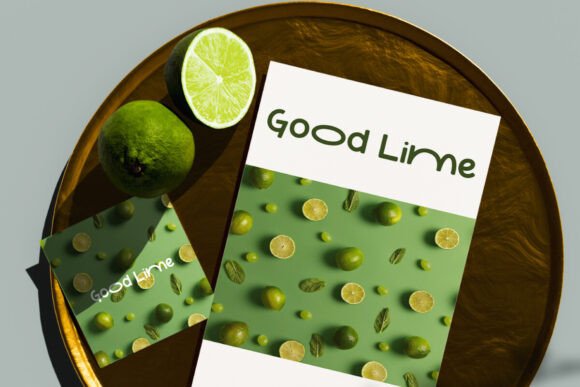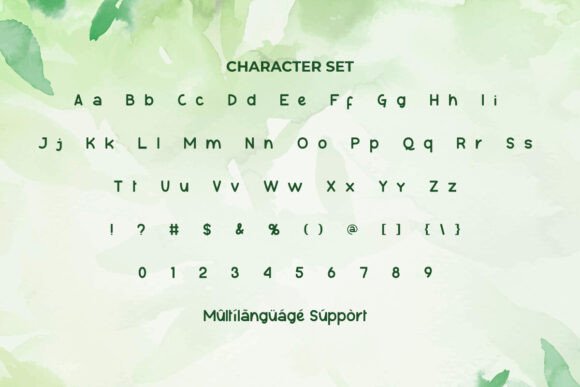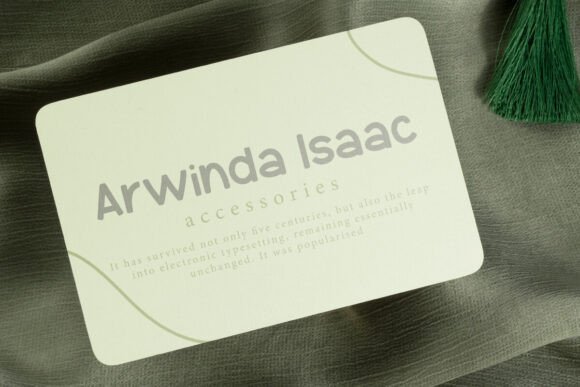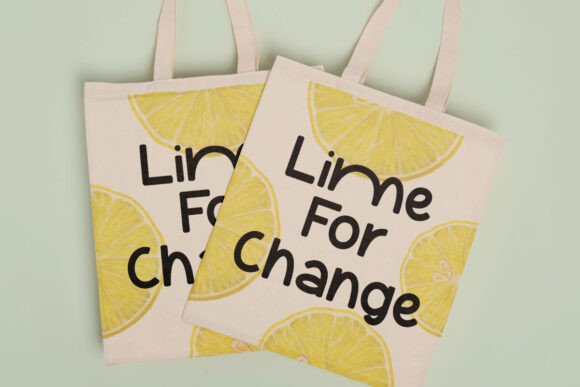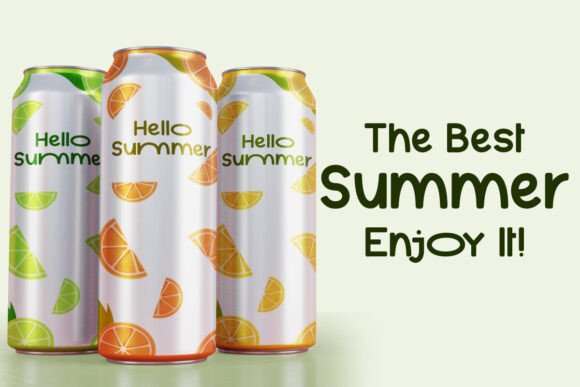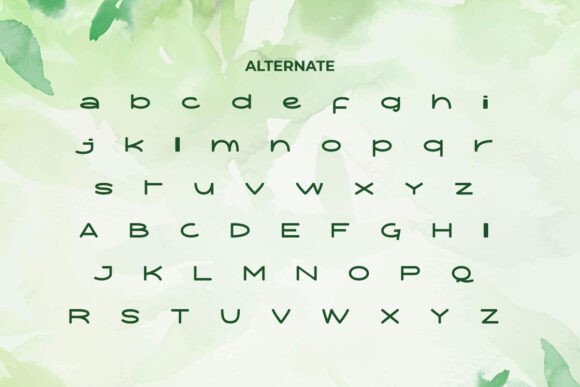
Introduction to Good Lime Font
Good Lime Font is a fun and modern display font with a casual and readable look, but can still add uniqueness to any of your designs, such as brand image, business card, catalog, cover, custom design, label, poster, quote, web, and more.
Good Lime Font is a fun and modern display font with a casual and readable look, but can still add uniqueness to any of your designs, such as brand image, business card, catalog, cover, custom design,
Key Features of Good Lime Font